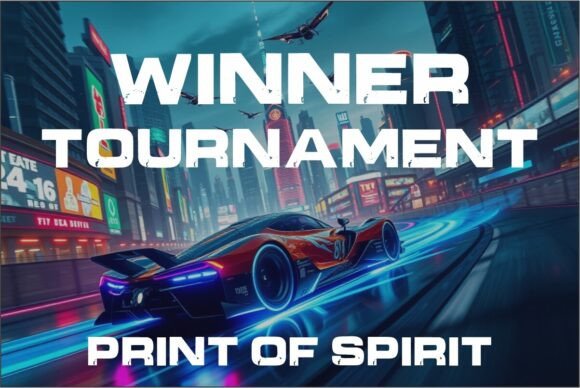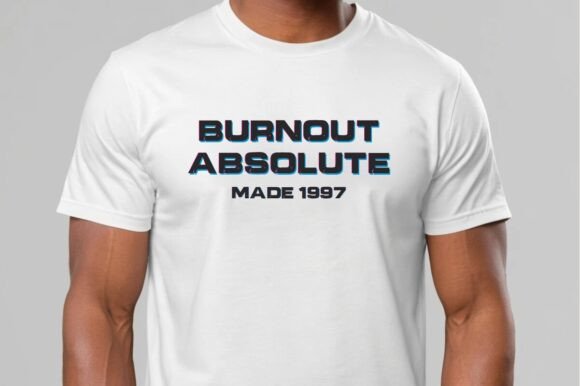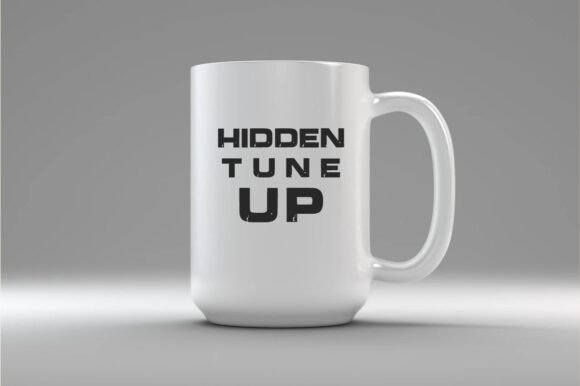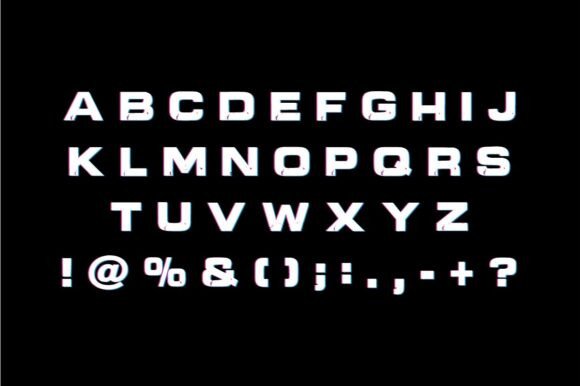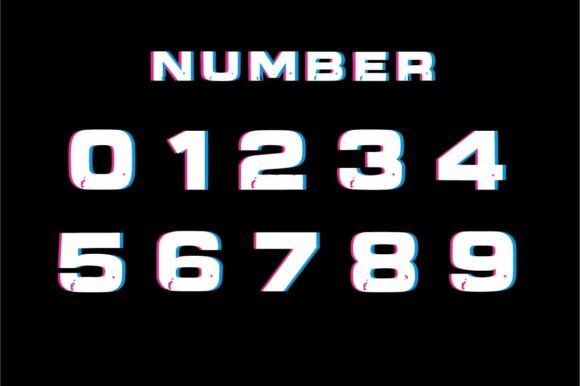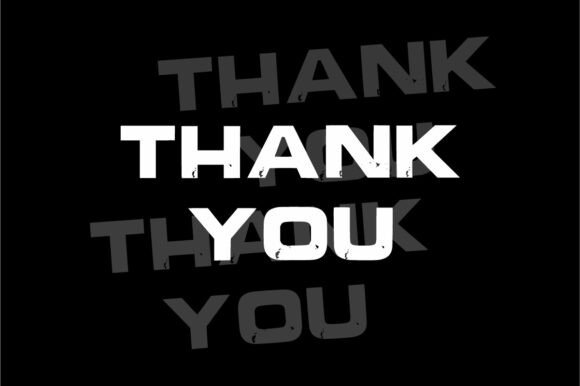
Introducing Burnout Absolute Font: The Ultimate Display Font for Sports and Racing Enthusiasts
Are you a designer or crafter looking for a font that can add a touch of excitement and energy to your projects? Look no further than Burnout Absolute Font. This display font is specifically designed to capture the spirit of sports and racing, making it perfect for a wide range of applications. With its casual and easy-to-read character, Burnout Absolute is sure to become a go-to choice for designers and crafters alike.
The Characteristics of Burnout Absolute Font
Burnout Absolute Font is a display font that boasts a unique and captivating design. Its sporty and racing-inspired character makes it an excellent choice for projects that require a bold and dynamic look. The font’s casual and easy-to-read nature ensures that it can be used in a variety of contexts, from headlines and titles to body text and more.
One of the standout features of Burnout Absolute Font is its versatility. The font is highly legible, even at smaller sizes, making it suitable for use in a range of applications, from digital media to print materials. Additionally, the font’s clean and modern design ensures that it will complement a wide range of design styles, from minimalist to elaborate.
The Benefits of Using Burnout Absolute Font
So, why should you choose Burnout Absolute Font for your next project? Here are just a few benefits of using this exceptional display font:
- Instant Recognition: The sporty and racing-inspired design of Burnout Absolute Font ensures that your project will grab attention and make a lasting impression.
- Versatility: With its casual and easy-to-read character, Burnout Absolute Font can be used in a wide range of applications, from digital media to print materials.
- Legibility: The font’s clean and modern design ensures that it remains highly legible, even at smaller sizes.
- Customization: Burnout Absolute Font can be easily customized to suit your project’s specific needs, allowing you to add your own unique touch.
Endless Options for Designers and Crafters
The possibilities are endless when it comes to using Burnout Absolute Font in your projects. Here are just a few ideas to get you started:
- Poster Design: Use Burnout Absolute Font to create eye-catching posters for sports events, racing tournaments, or fitness campaigns.
- Branding and Logo Design: The font’s sporty and dynamic design makes it an excellent choice for branding and logo design projects.
- Digital Media: Use Burnout Absolute Font to add a touch of excitement to your digital media projects, such as social media graphics, video game designs, or website headers.
- Print Materials: The font’s legibility and versatility make it suitable for use in a range of print materials, from brochures and flyers to business cards and t-shirts.
In conclusion, Burnout Absolute Font is an exceptional display font that is sure to become a staple in every designer’s and crafter’s toolkit. With its sporty and racing-inspired character, casual and easy-to-read design, and endless possibilities for customization, this font is perfect for a wide range of applications. So why wait? Download Burnout Absolute Font today and unleash your creativity!